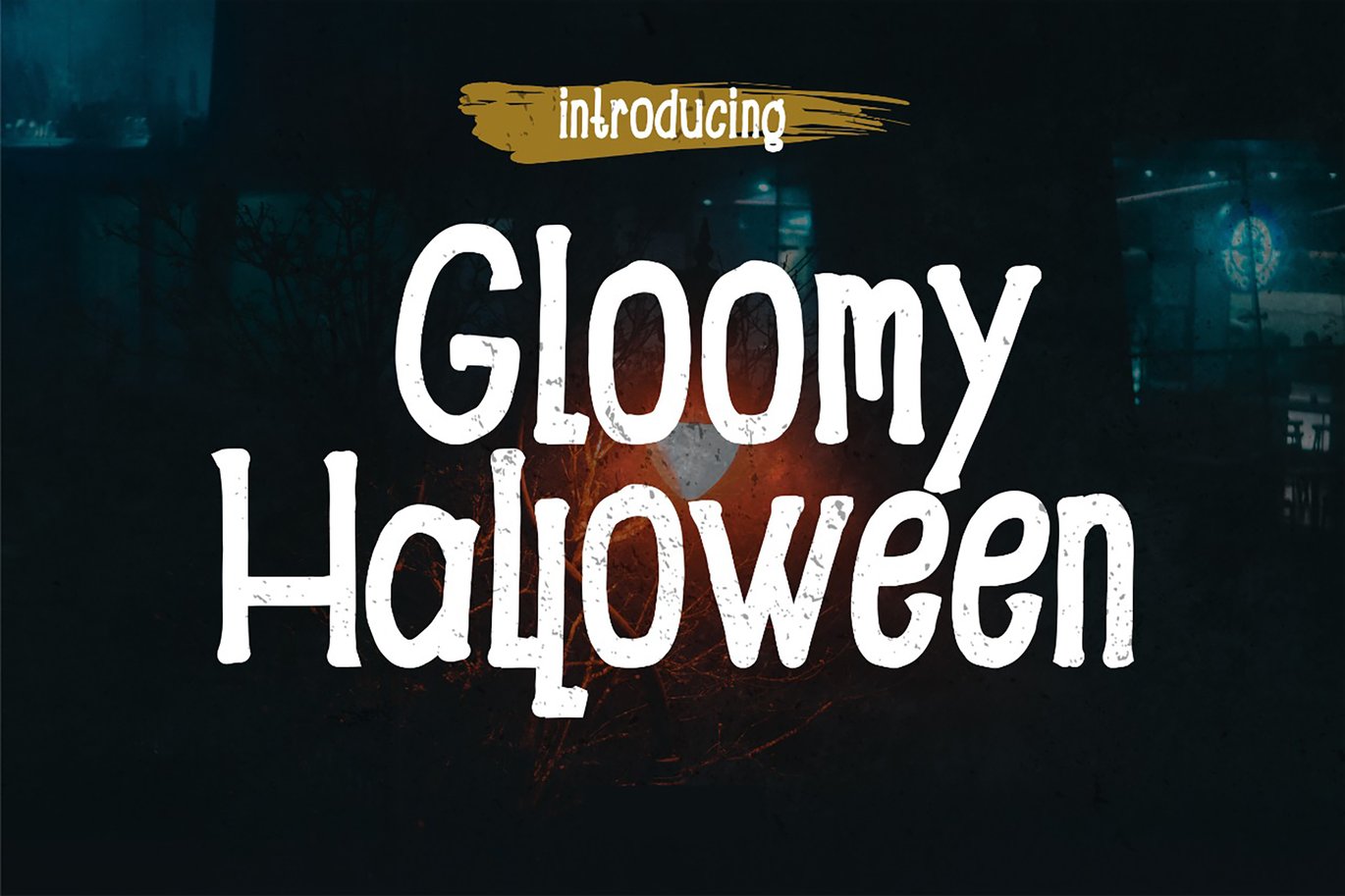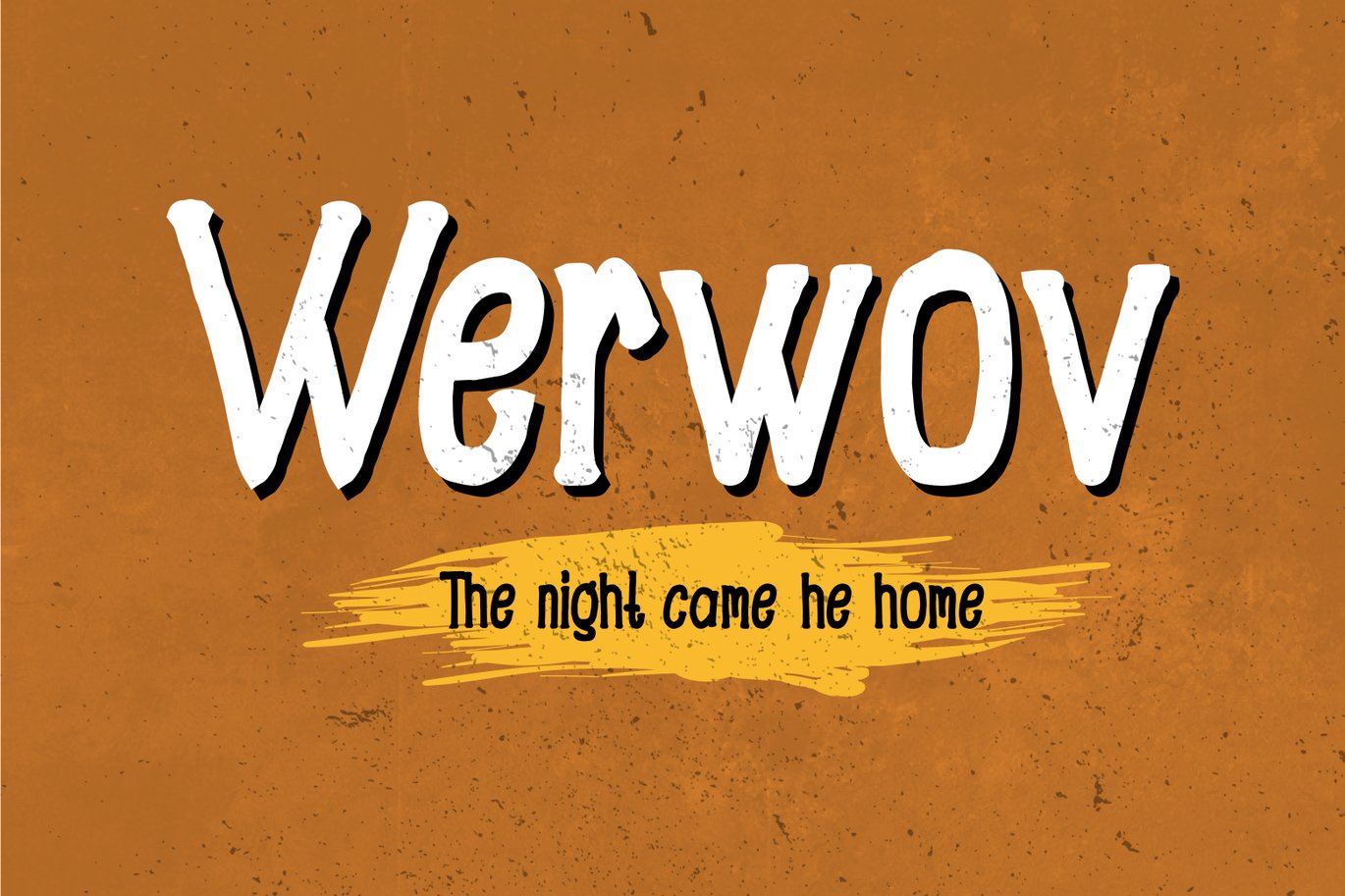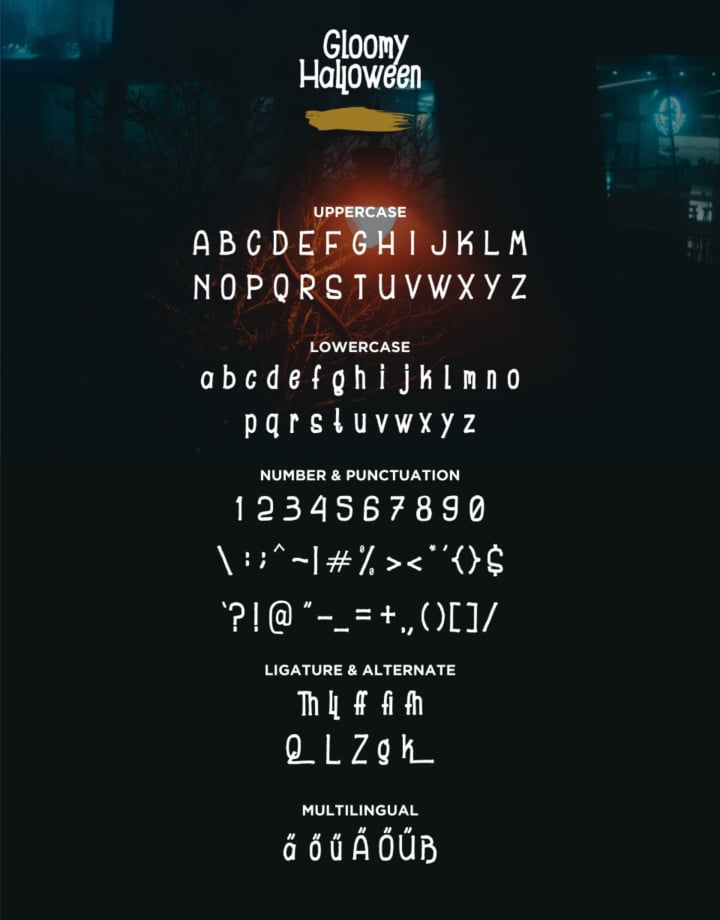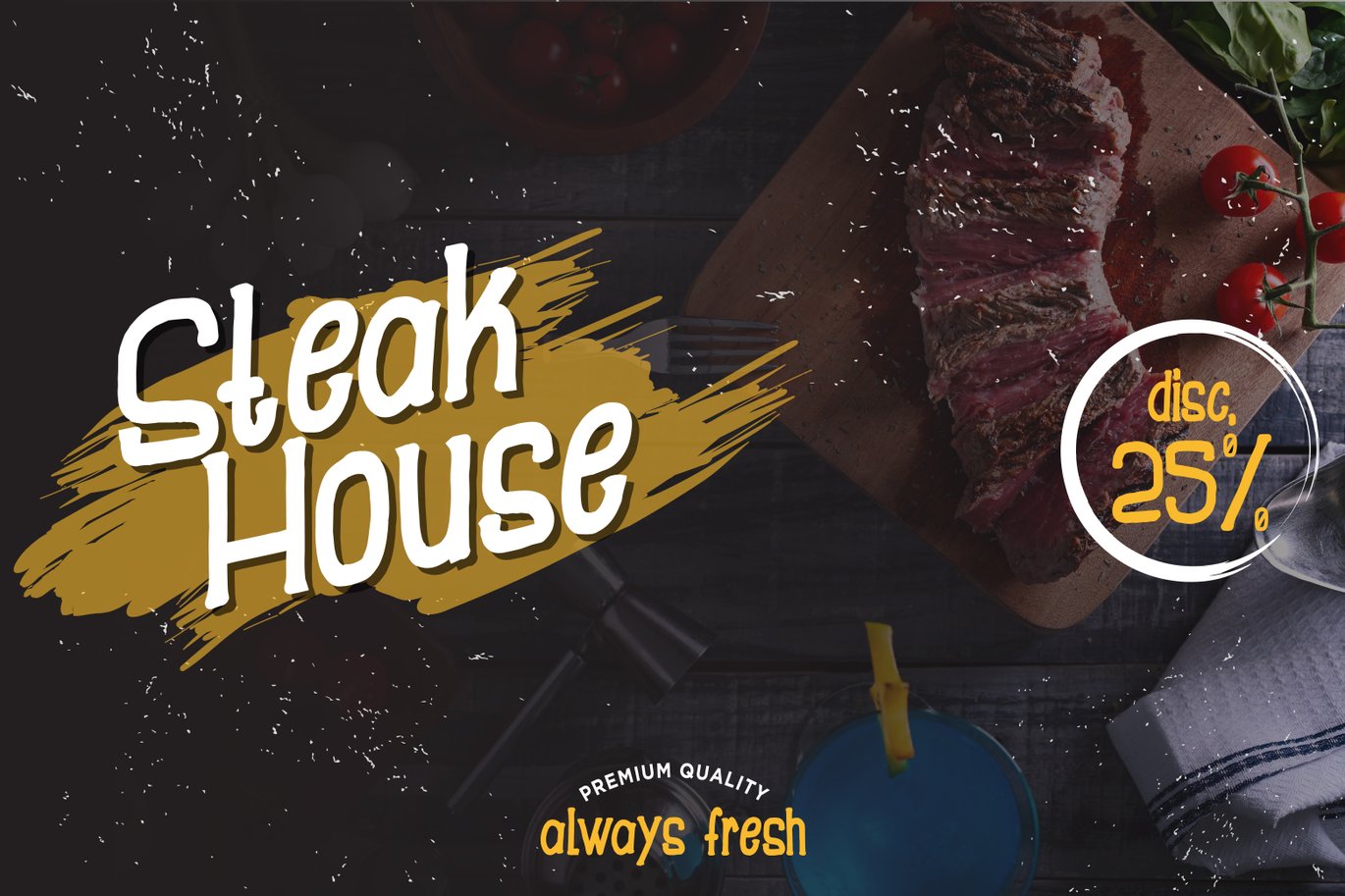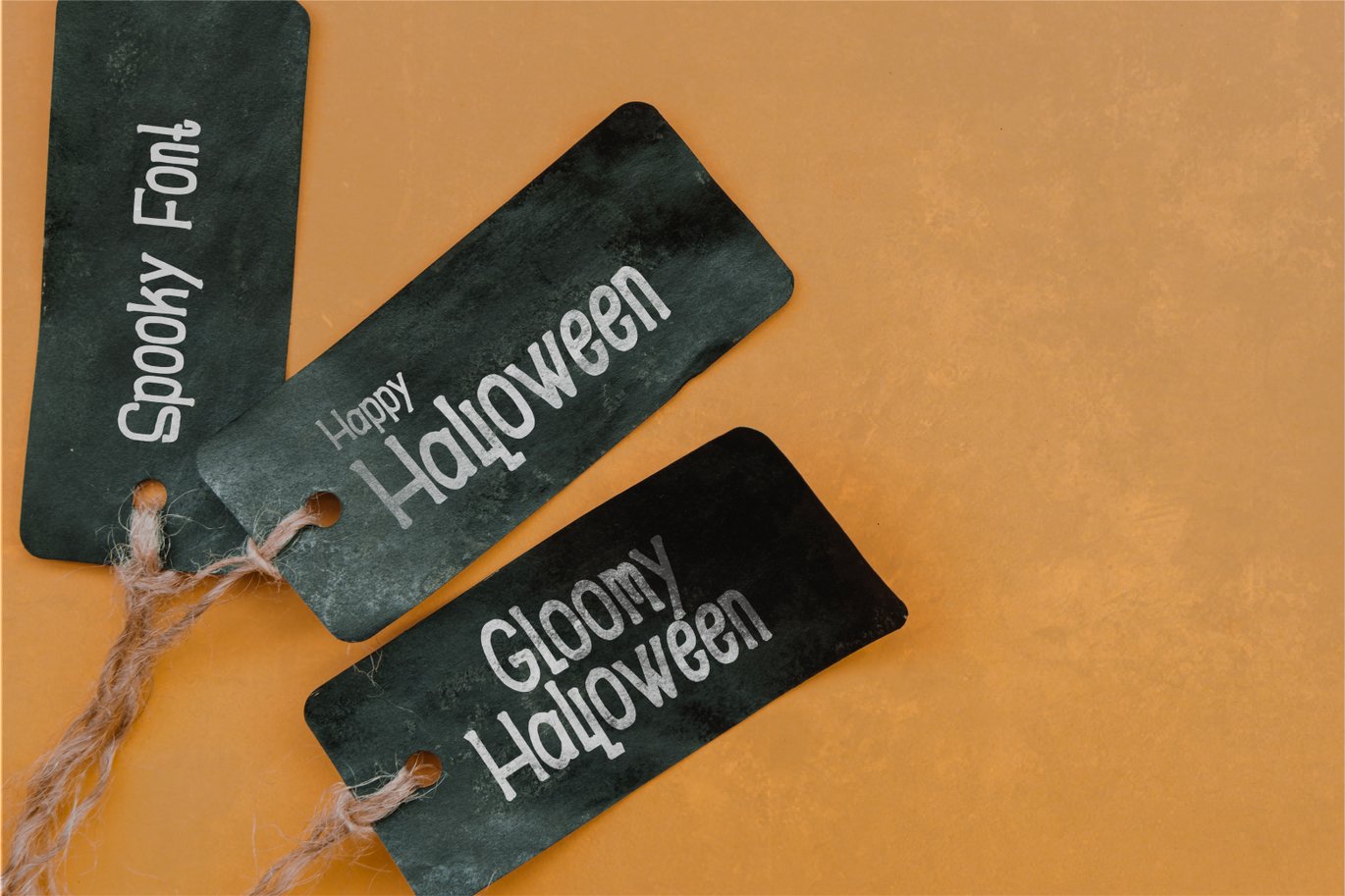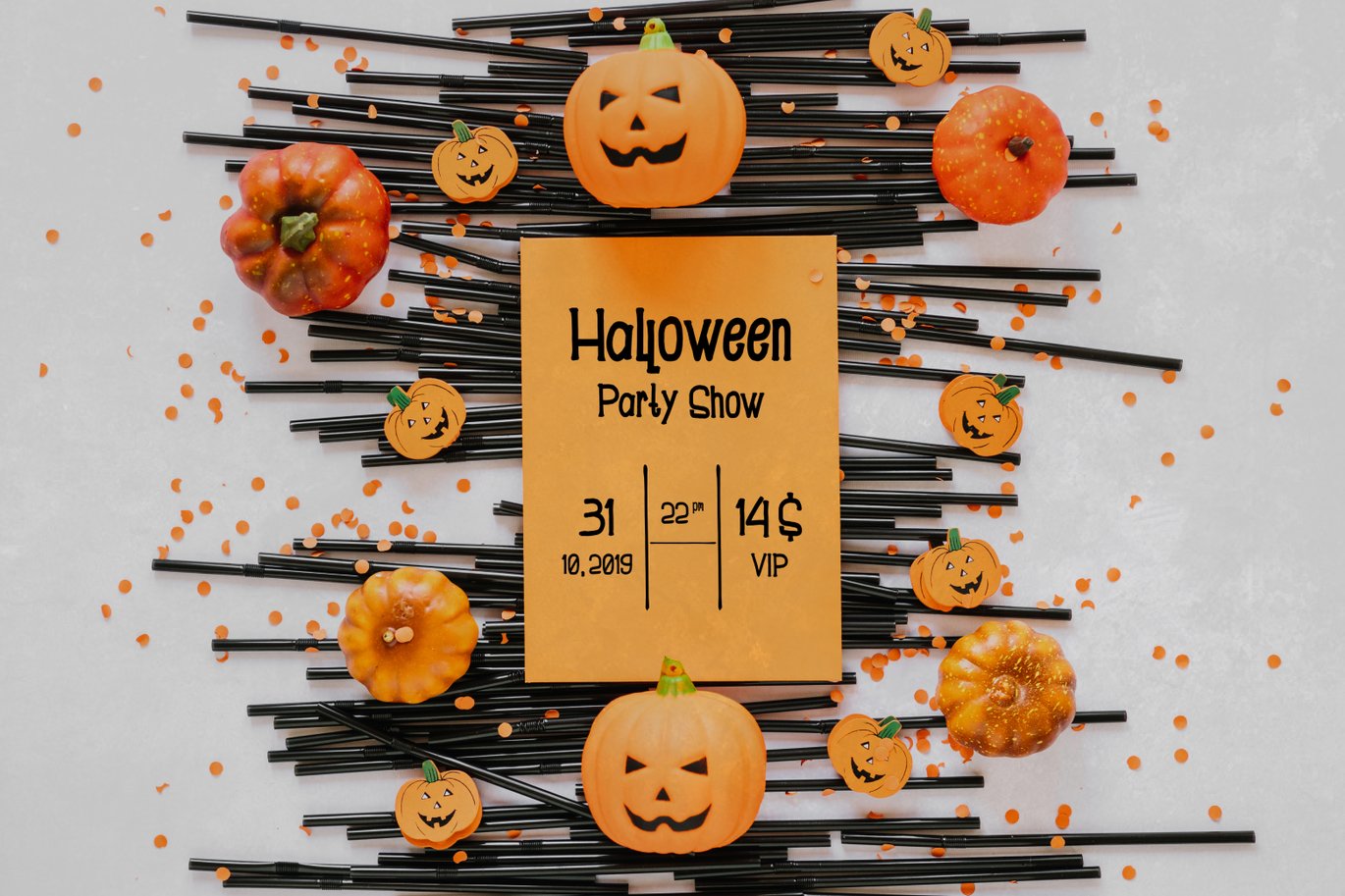
Gloomy – Halloween Font
Gloomy Halloween is perfect to use for Logotype, Letterhead, Poster, Apparel Design, Label and etc.
The alternative characters were divided into several features such as Stylistic Alternates and Ligature.
- All Alternates
- Standard Ligatures
Fonts include Multilingual Support